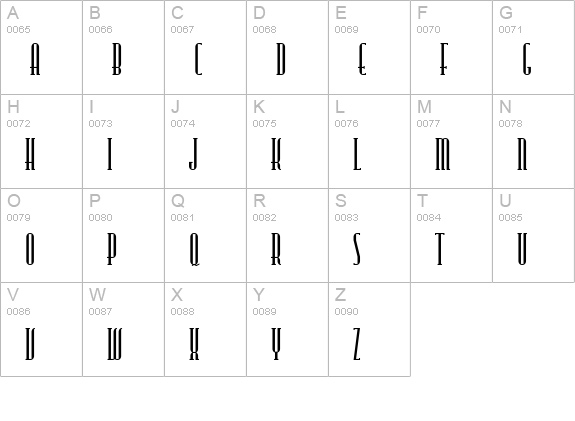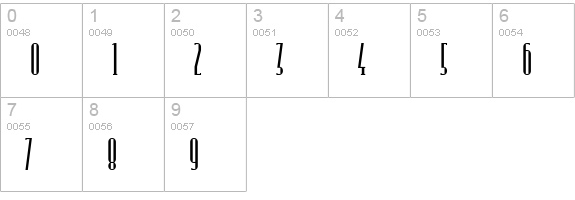
Kniff-Regular Font Details
Kniff-Regular is the standard, neutral variant in the Kniff typeface family \xE2\x80\x94 well suited to general body text, paragraphs, and standard typographic work.
Kniff-Regular font is a striking and versatile typeface that effortlessly combines elegance with a touch of modernity. This font features clean lines, balanced proportions, and a unique blend of sharp edges and subtle curves, making it perfect for a wide range of design projects. With its timeless appeal and distinctive character, Kniff-Regular font is a true gem that adds sophistication and style to any creative endeavor. Whether used for branding, advertising, web design, or print materials, this font never fails to make a bold statement. One of the best things about Kniff-Regular font is that it is available to download for free at FontsMarket.com. This means that designers and creatives from all backgrounds can have access to this outstanding typeface without any financial constraints. With just a few clicks, you can unlock the power of Kniff-Regular font and elevate your designs to new heights. So, why wait? Embrace the beauty of Kniff-Regular font and let your creativity soar. Download it for free at FontsMarket.com and witness the transformative impact it brings to your projects. With its impeccable design and accessibility, Kniff-Regular font is a must-have for any designer seeking to make a lasting impression.